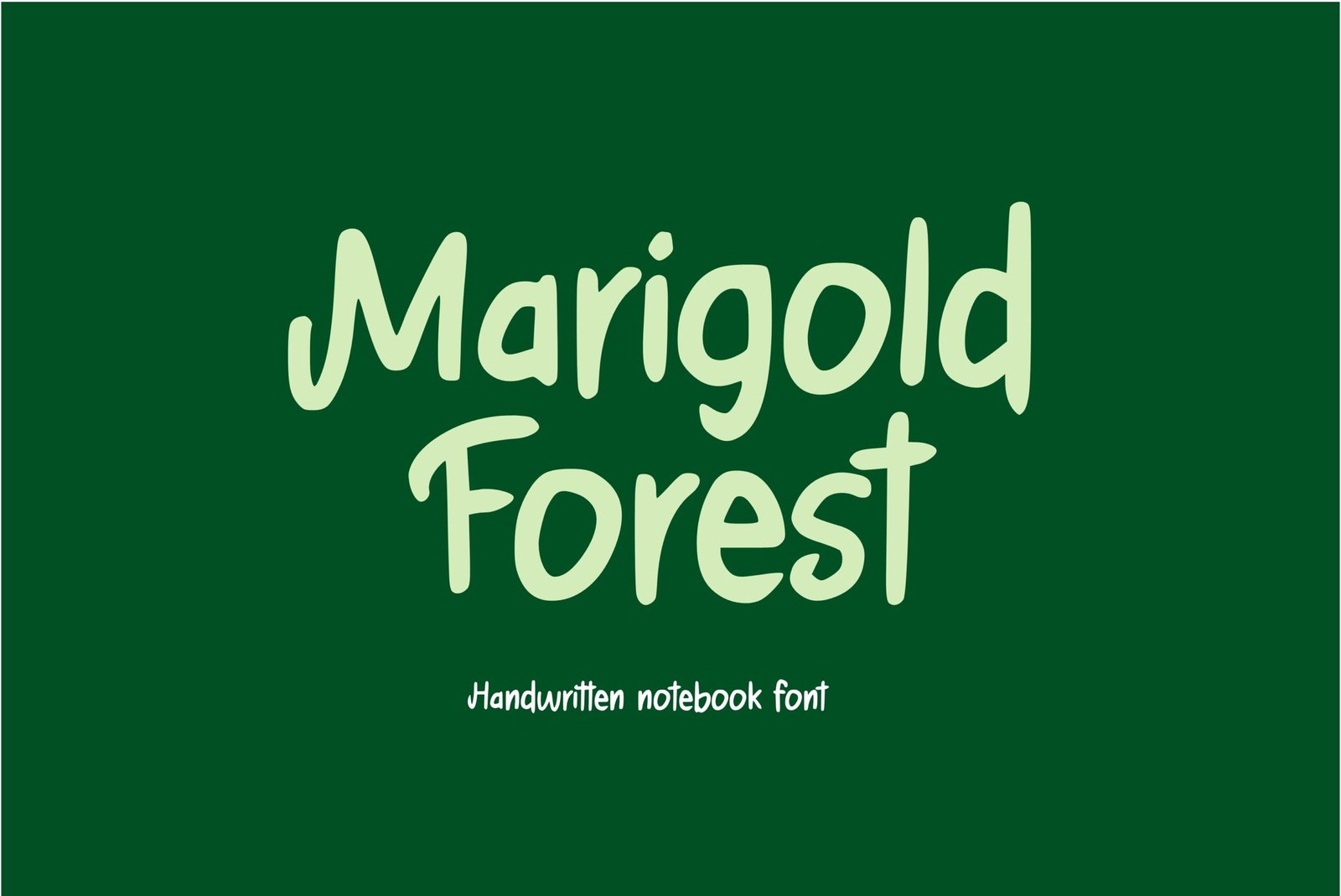
Marigold Forest Font
Handwritten font. “Marigold Forest”. Perfect for goodnotes, student projects, classroom, school teachers, advertising and display purposes, including banners, book covers, shirts, posters, logos and much more!
Font includes all upper and lowercase letters, numbers, characters, and punctuation.